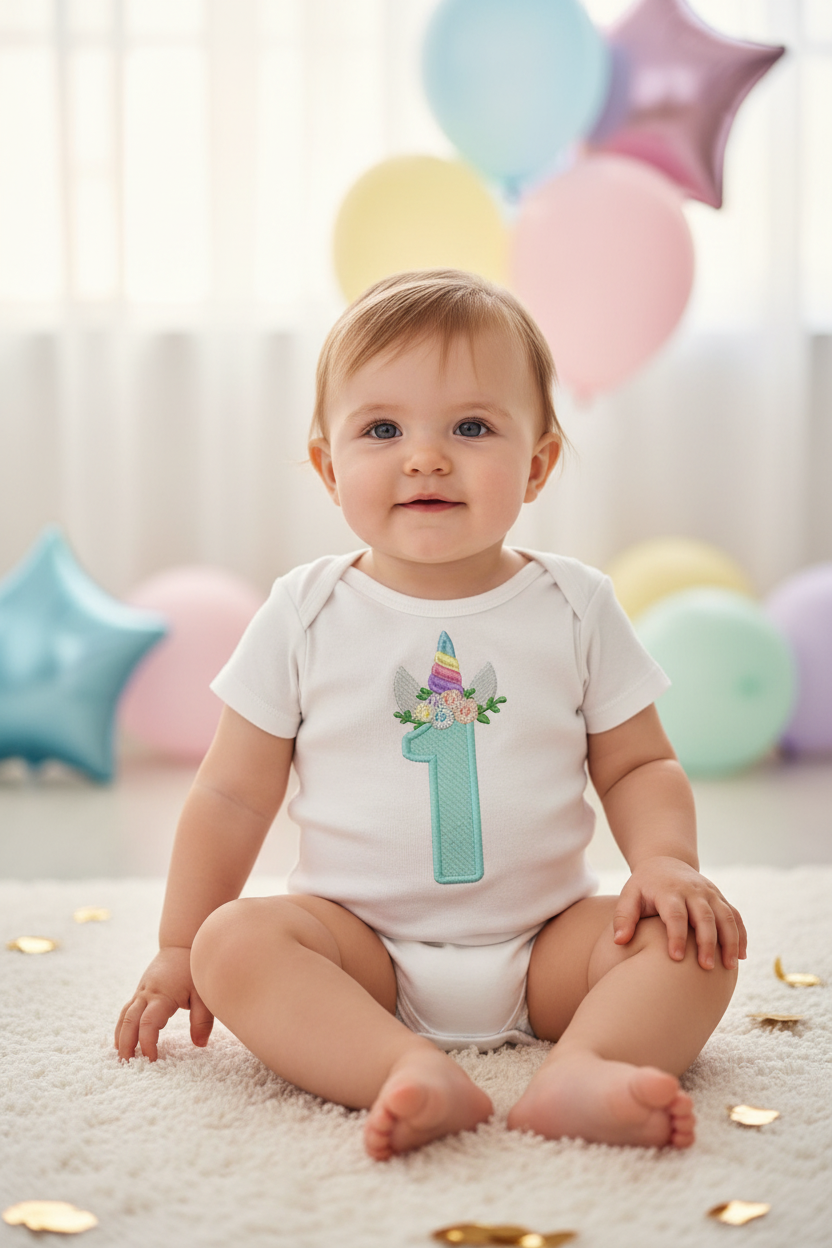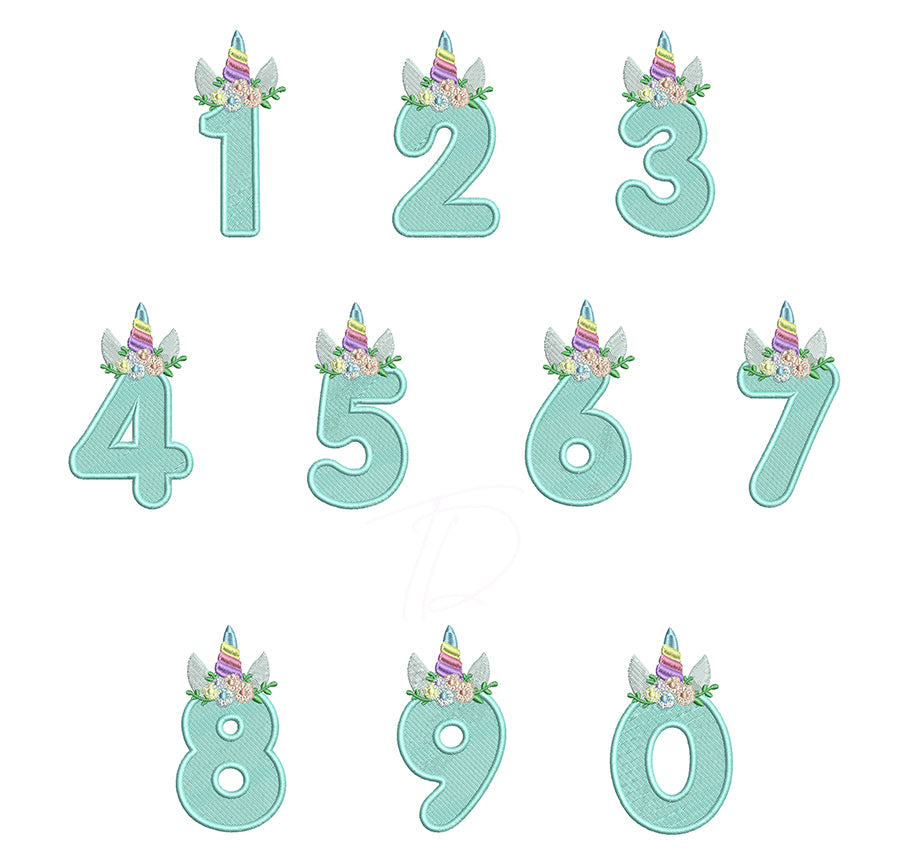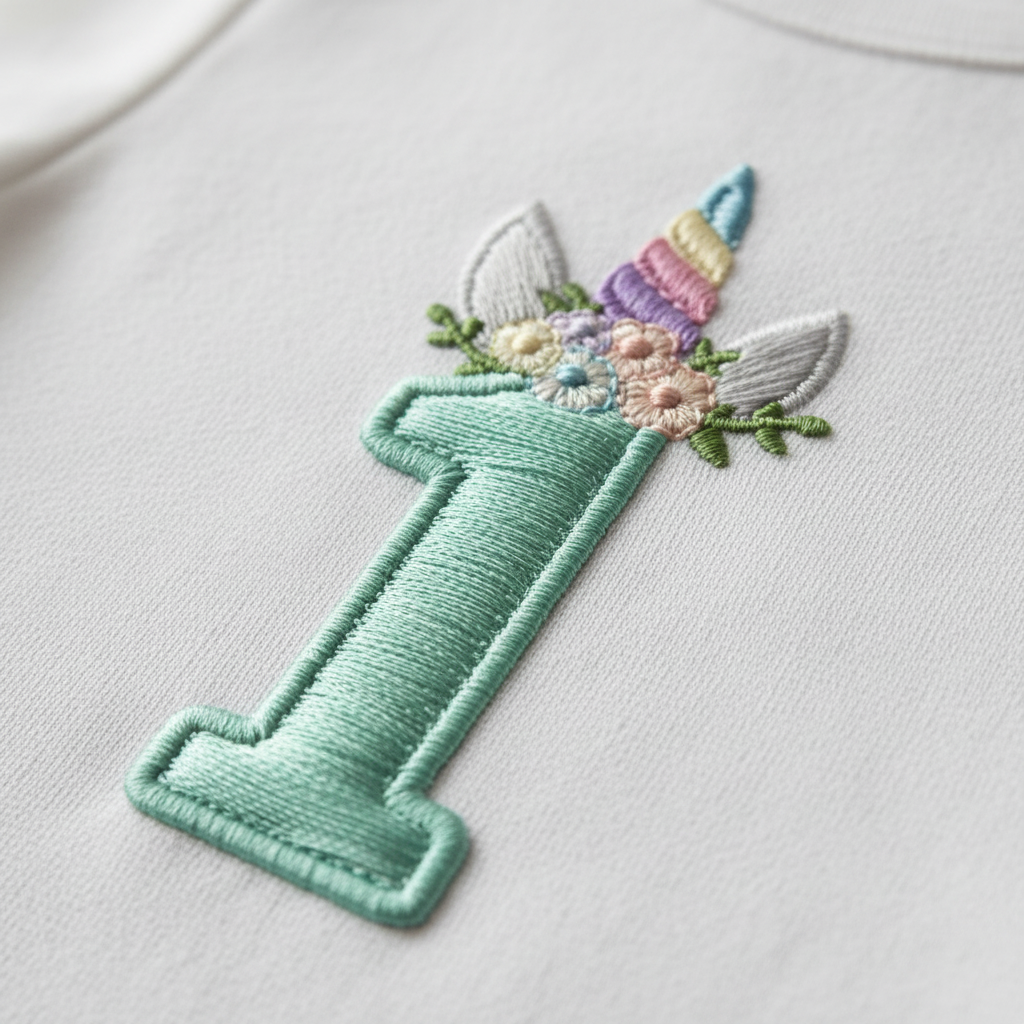
Unicorn Numbers Embroidery Font
Add a magical touch to your embroidery projects with our Unicorn Numbers Font — a whimsical, playful number set perfect for personalized gifts, kids' apparel, sports jerseys, and more.
- Digits 0–9 (numbers only, no letters)
- Clean stitching with smooth curves and unicorn-inspired details
Perfect for monogramming ages, jersey numbers, birth announcements, and nursery decor.